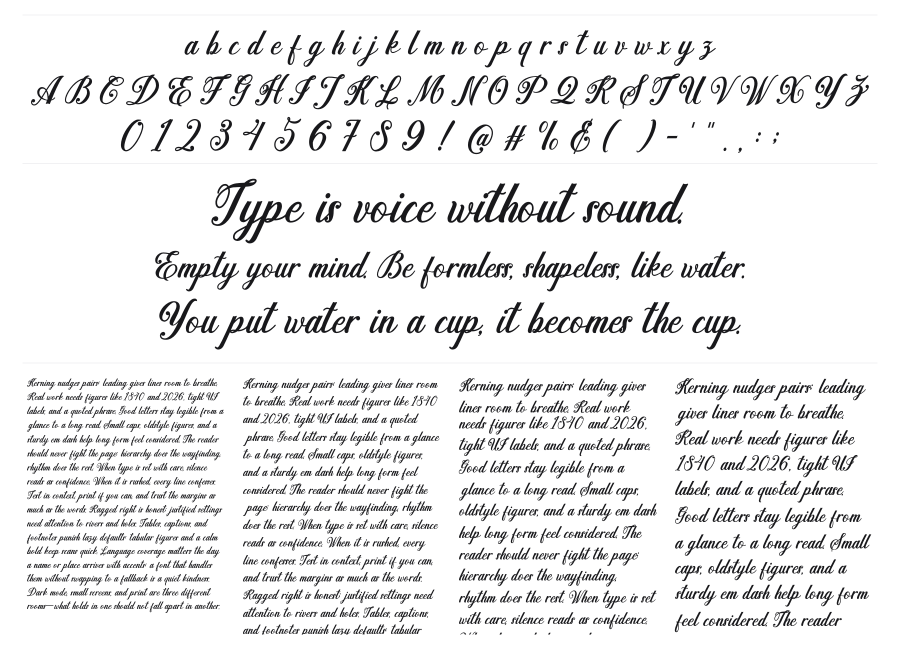
Madena Parlling
Madena Parlling is a bold casual script with confident sweeping strokes and a lively rhythmic flow. The thick downstrokes and hairline transitions give it classic hand-lettering energy, while the continuous connections keep each word reading as a single fluid shape. It carries the kind of warmth and personality that works naturally across packaging, branding, and social media graphics.